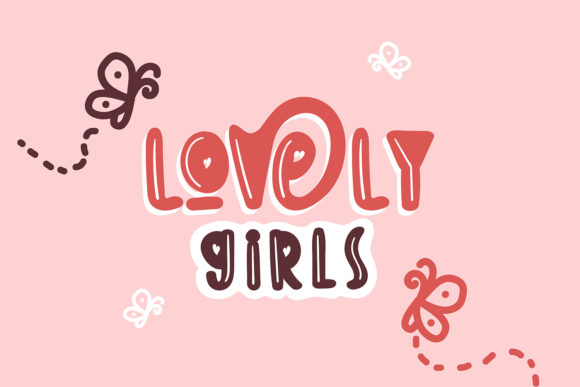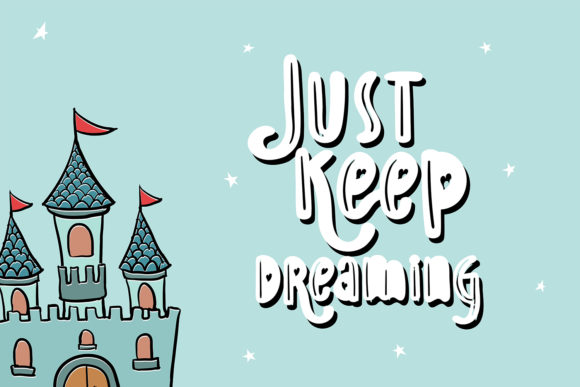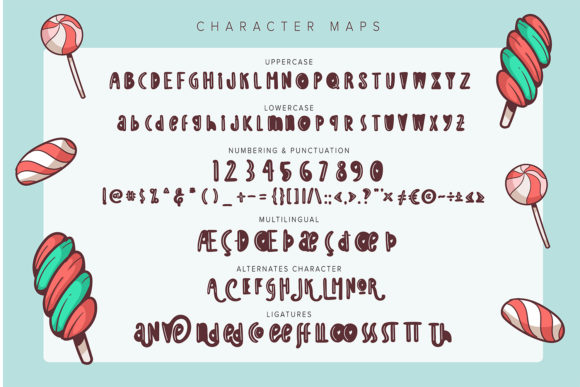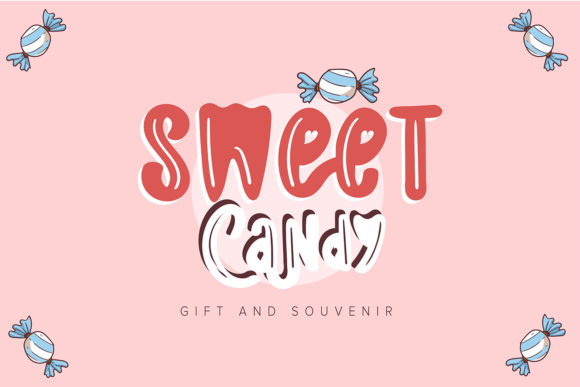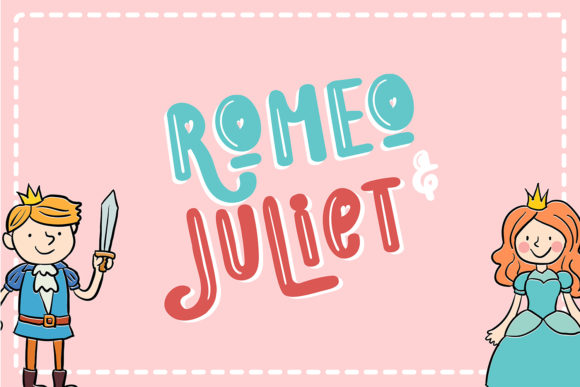
Candylove Font: The Sweetest Addition to Your Design Projects
Are you a designer or crafter looking for a unique and fun font to add a touch of sweetness to your projects? Look no further than Candylove Font! This decorative font is perfect for creating eye-catching greeting cards, crafts, logos, and so much more. In this article, we’ll dive into the features and benefits of Candylove Font, and explore how you can use it to take your designs to the next level.
What is Candylove Font?
Candylove Font is a fun and unique decorative font that features a sweet style that’s sure to capture attention. With its playful and whimsical design, this font is perfect for adding a touch of personality to your projects. Whether you’re creating a greeting card, crafting a logo, or designing a flyer, Candylove Font is the perfect choice.
Key Features of Candylove Font
- Unique and Decorative: Candylove Font features a one-of-a-kind design that’s sure to stand out from the crowd.
- Sweet Style: The font’s sweet and playful style makes it perfect for creating fun and eye-catching designs.
- Versatile: Candylove Font can be used for a wide range of projects, from greeting cards and crafts to logos and more.
Uses for Candylove Font
Candylove Font is a versatile font that can be used for a wide range of projects. Here are just a few ideas to get you started:
- Greeting Cards: Add a touch of sweetness to your greeting cards with Candylove Font.
- Crafts: Use Candylove Font to create custom labels, signs, and other craft projects.
- Logos: Create a unique and eye-catching logo for your business or brand with Candylove Font.
- Flyers and Brochures: Add a playful touch to your marketing materials with Candylove Font.
- Social Media Graphics: Use Candylove Font to create fun and engaging social media graphics.
Tips for Using Candylove Font
Here are a few tips for getting the most out of Candylove Font:
- Experiment with Colors: Candylove Font looks great in a variety of colors, so don’t be afraid to experiment and find the perfect hue for your project.
- Mix and Match: Combine Candylove Font with other fonts and design elements to create a unique and eye-catching design.
- Keep it Simple: Don’t overcomplicate your design – Candylove Font is perfect for simple and elegant designs.
Candylove Font is a fun and unique decorative font that’s perfect for designers and crafters looking to add a touch of sweetness to their projects. With its playful and whimsical design, this font is sure to capture attention and make your designs stand out. Whether you’re creating greeting cards, crafts, logos, or more, Candylove Font is the perfect choice. So why wait? Download Candylove Font today and start creating your own sweet designs!